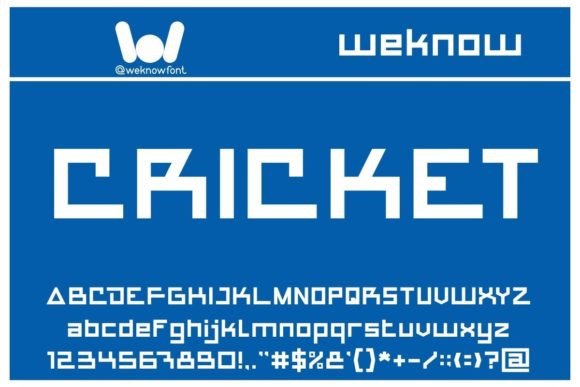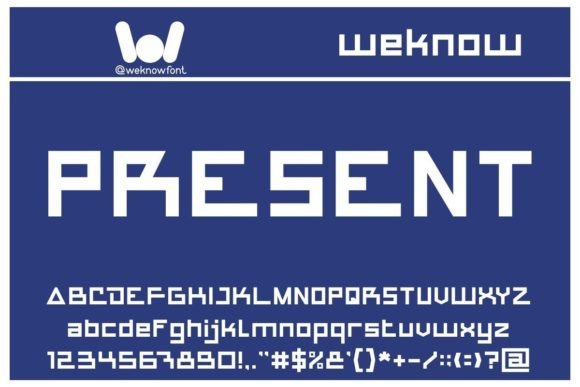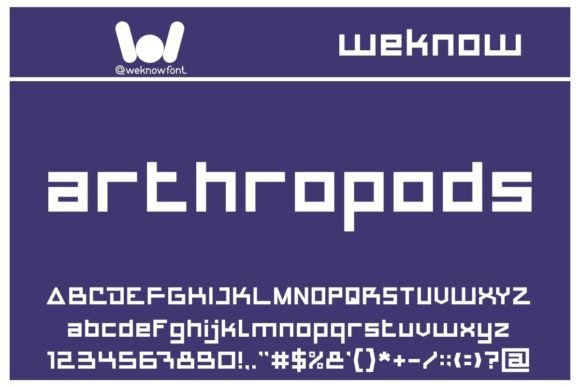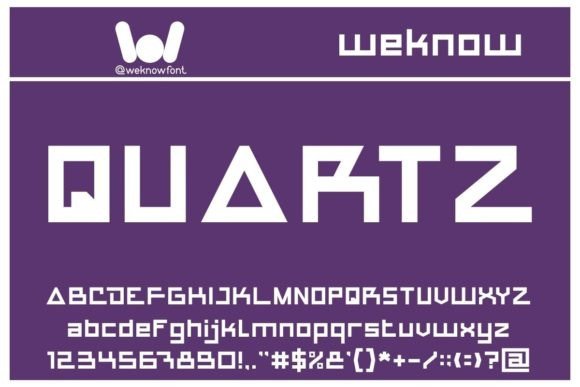
Introducing Apollo Rocket Font: The Ultimate Techno Display Font
In the world of typography, fonts play a crucial role in conveying the tone and personality of a brand or project. For designers and crafters looking for a bold and modern touch, Apollo Rocket Font is an excellent choice. This trendy and cool display font boasts a techno vibe that’s perfect for projects that require a futuristic and innovative character.
What Makes Apollo Rocket Font Stand Out?
Apollo Rocket Font is designed to make a statement. Its sleek and futuristic design is inspired by the technological advancements of the space age, evoking the sense of adventure and innovation that comes with exploring the cosmos. The font’s bold and edgy character makes it perfect for headlines, titles, and any other design element that needs to grab attention.
Key Features of Apollo Rocket Font
• Trendy and Cool Design: Apollo Rocket Font features a unique and stylish design that’s sure to make your projects stand out from the crowd.
• Techno Vibe: The font’s futuristic character gives it a techno vibe that’s perfect for projects that require a bold and modern touch.
• Bold and Edgy: Apollo Rocket Font is designed to make a statement, making it perfect for headlines, titles, and other design elements that need to grab attention.
• Futuristic and Innovative: The font’s futuristic design makes it suitable for projects that require a sense of innovation and forward-thinking.
Use Cases for Apollo Rocket Font
Apollo Rocket Font is versatile and can be used in a variety of projects, including:
• Branding and Logo Design: The font’s bold and edgy character makes it perfect for creating unique and memorable logos.
• Headlines and Titles: Apollo Rocket Font is designed to grab attention, making it perfect for headlines and titles.
• Posters and Flyers: The font’s futuristic character makes it perfect for creating eye-catching posters and flyers.
• Digital Media: Apollo Rocket Font can be used in digital media, such as video games, mobile apps, and websites.
Tips for Using Apollo Rocket Font
To get the most out of Apollo Rocket Font, here are some tips to keep in mind:
• Use it Sparingly: Apollo Rocket Font is bold and attention-grabbing, so use it sparingly to avoid overwhelming your design.
• Pair it with a Neutral Font: Pair Apollo Rocket Font with a neutral font to create contrast and balance in your design.
• Experiment with Colors: The font’s futuristic character makes it perfect for experimenting with bold and bright colors.
Apollo Rocket Font is a trendy and cool display font that’s perfect for designers and crafters looking for a bold and modern touch. Its futuristic and innovative character makes it suitable for a wide range of projects, from branding and logo design to headlines and titles. With its sleek and edgy design, Apollo Rocket Font is sure to make a statement and take your projects to the next level.